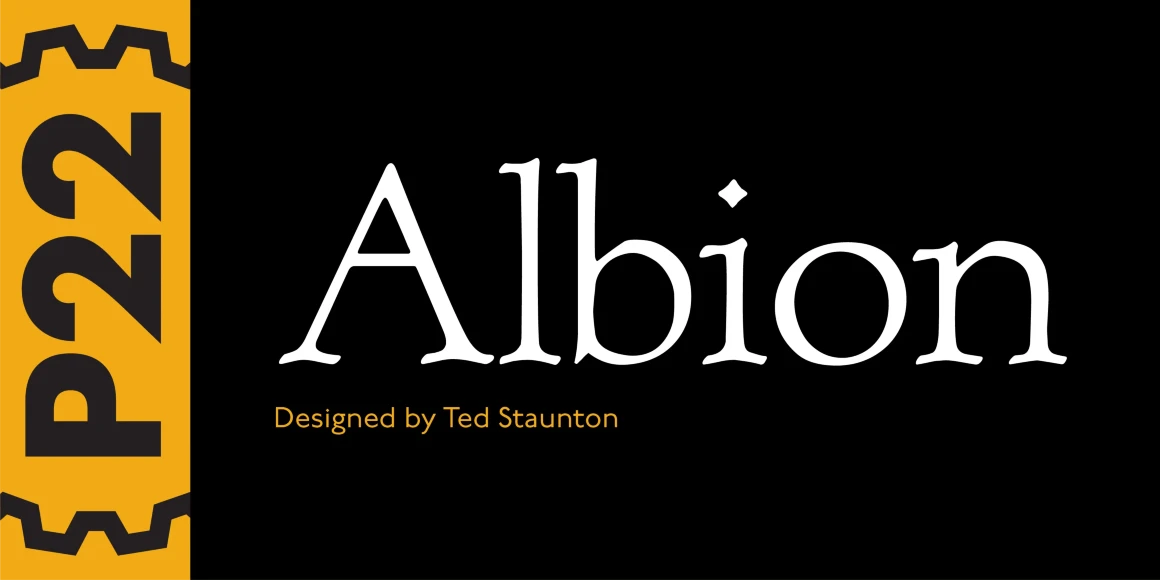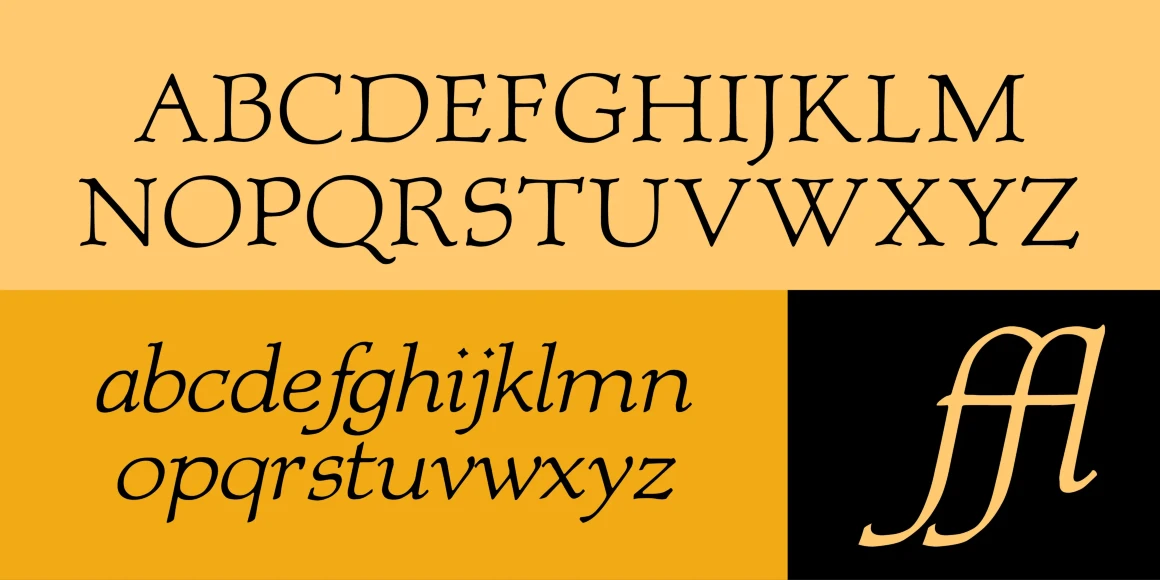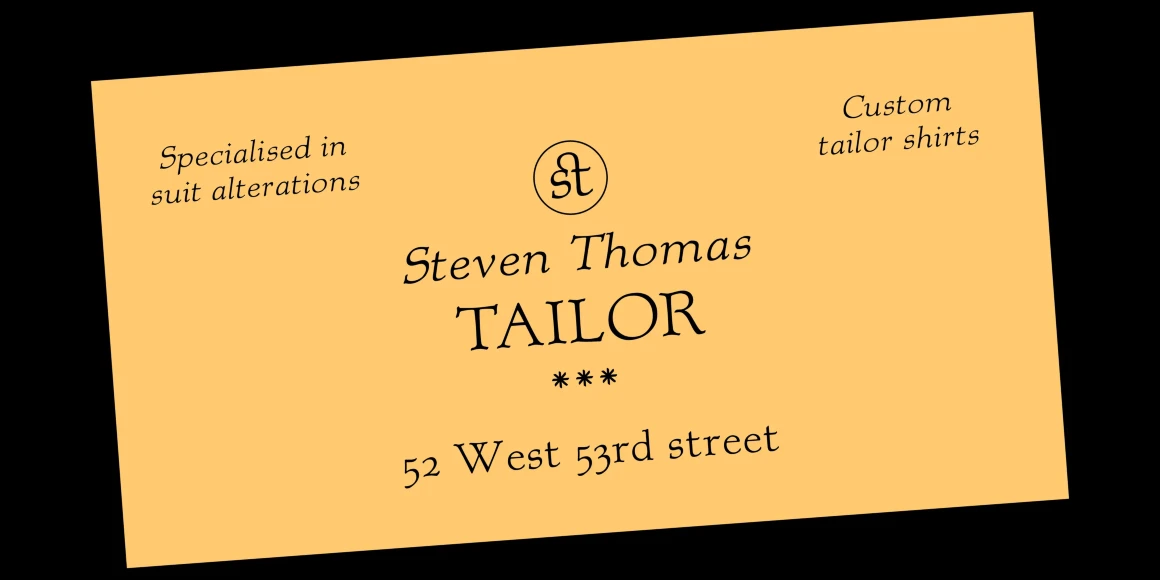
Albion
An open, lightweight font of classical Roman proportions, designed for text or display setting. The serifs are slightly hooked, giving the face a liveliness on the baseline.
Designed by Ted Staunton